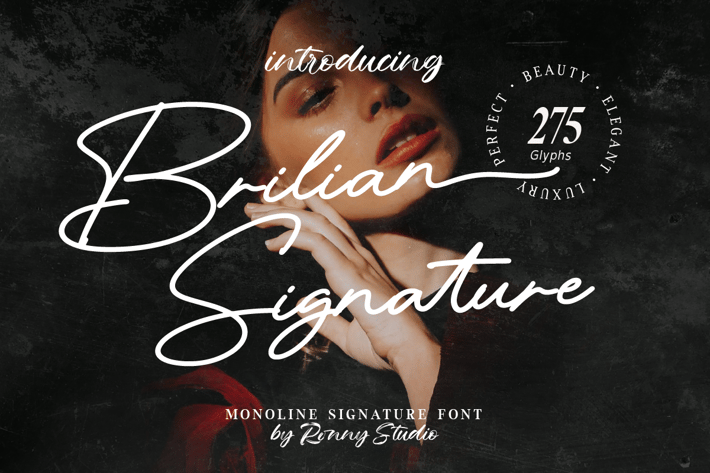
Brilian Signature - Monoline Signature Font
Brilian Signature is a signature script font with beautiful strokes. This font is impressive and features a clean and elegant font, professionally shaped, and as a result, it will easily match a variety of creations that require a different touch. Add it with confidence to your projects, and you'll love the results. This typeface is perfect for elegant logos, branding, promotions, layout magazines, beauty products, business cards, weddings, quotes, or simply as a stylish text overlay onto any background image.
- Uppercase & Lowercase
- numbers & punctuation
- Alternate & Ligature
- Multilingual